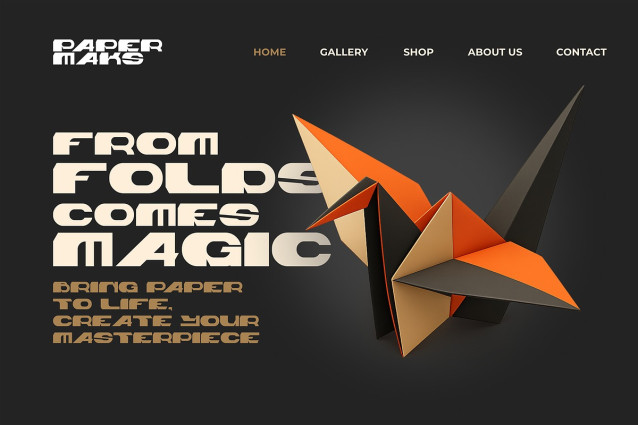
Bygen Font is a sleek and stylish modern display font crafted to bring a fresh, clean edge to your design projects. With a contemporary aesthetic and versatile character set, Bygen blends sharp precision with minimal flair—making it ideal for branding, logos, editorial layouts, packaging, and digital interfaces.